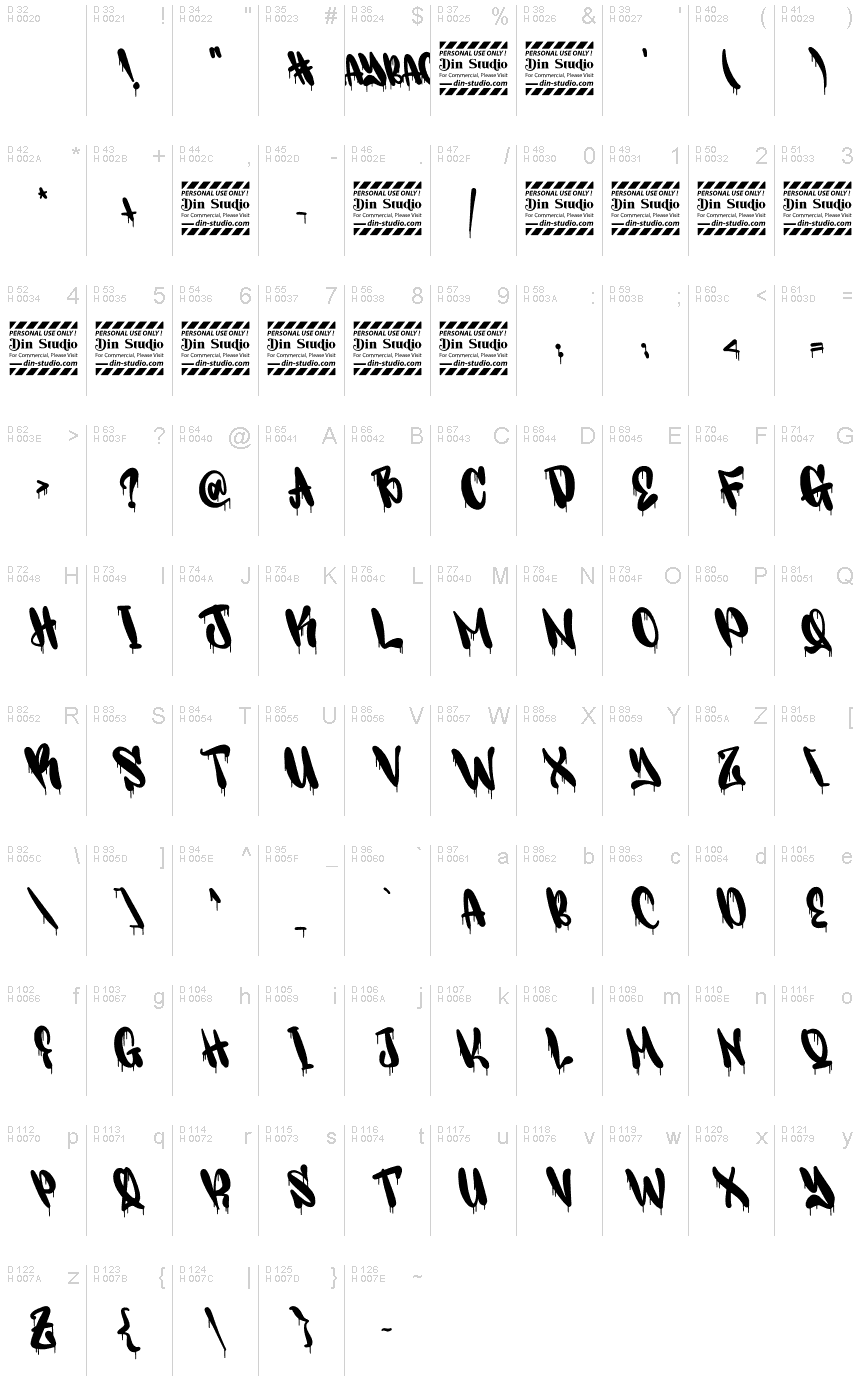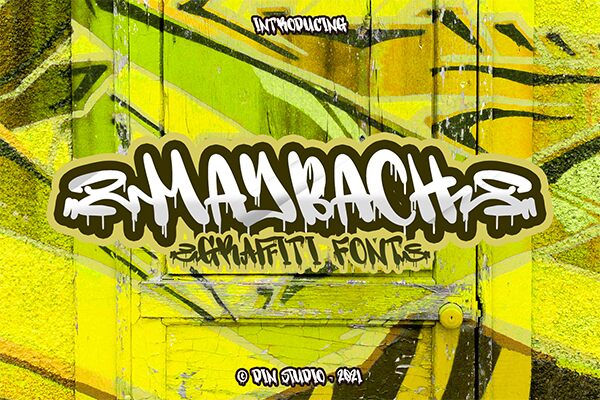
Maybach emerges from the vibrant streets and urban artistry, crafted by the talented Din Studio. With its semi-bold weight, this graffiti font embodies a rebellious yet playful spirit that echoes through each character. The distinctive bubble aesthetics fuse with an adventurous uppercase design, showcasing a stylish and fabulous flair tailor-made for creative minds.
Whether you're looking to infuse your logo with personality, make your posters pop, or give your t-shirt designs an edge, Maybach is your go-to typeface. Its versatility stretches across branding and advertising projects, offering a fresh perspective in a sea of conventional fonts. Embrace the unique charm of Maybach and let your designs speak volumes about innovation and contemporary artistry.